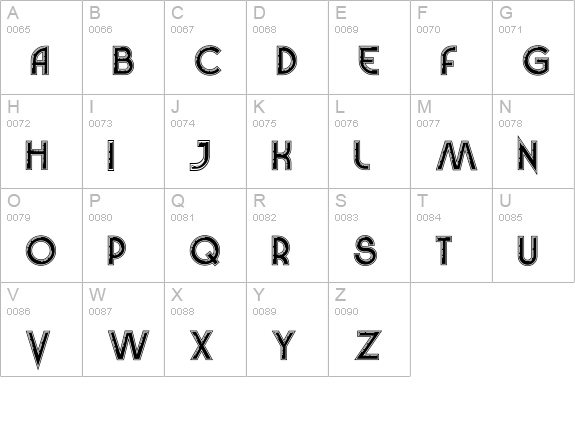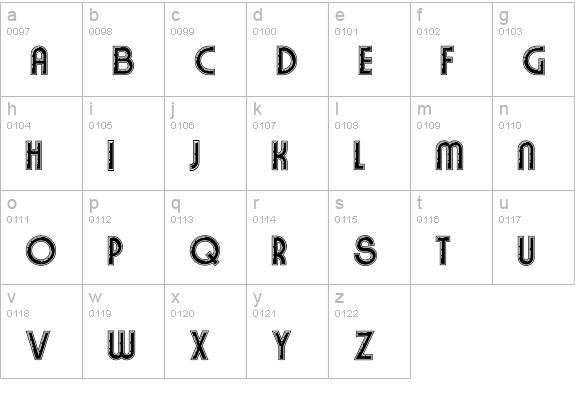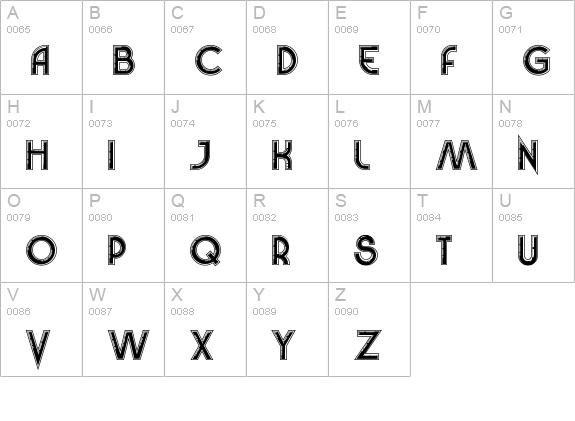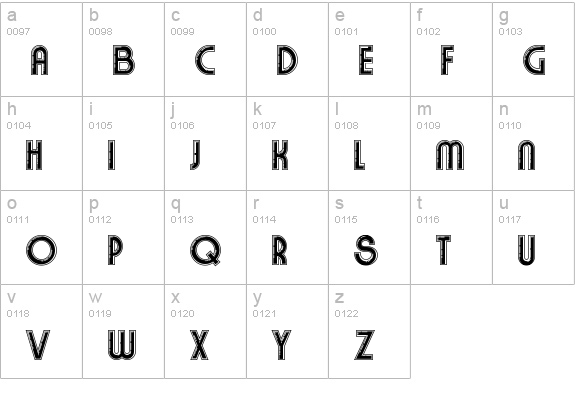
Vinyl Smooth BV is a stunning font that effortlessly captures the essence of retro aesthetics with a modern twist. Its sleek and smooth letterforms exude a sense of elegance and sophistication, making it the perfect choice for any design project that requires a touch of nostalgic charm. The carefully crafted curves and sharp edges of Vinyl Smooth BV lend themselves beautifully to a wide range of applications, from branding and packaging to headlines and posters. Whether you're creating a vintage-inspired logo or designing a captivating album cover, this font will undoubtedly elevate your design to new heights. One of the best things about Vinyl Smooth BV is that it is available for free download at FontsMarket.com. This means that you can easily access this incredible font without having to spend a dime. It's a fantastic opportunity to add a touch of timeless elegance to your design arsenal, without breaking the bank. Don't miss out on the chance to enhance your design projects with the mesmerizing beauty of Vinyl Smooth BV. Download it for free today at FontsMarket.com and start creating stunning visuals that will leave a lasting impression.